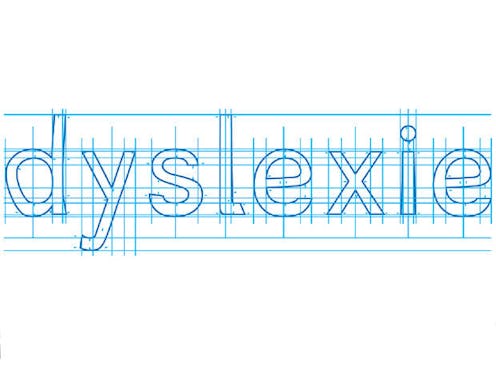
This Is A Typeface For Dyslexic People
For those of us who spend lots of time writing on the computer, we know the right font can make all the difference. But, outside of a stylistic choice, most of us have the privilege of being able to read most fonts without a problem. Those with dyslexia, however, often struggle with reading type. Thankfully, Dutch designer Christian Boer developed a typeface for dyslexic people, "Dyslexie," which he debuted at the Istanbul Design Biennial.
Approximately 10 to 15 percent of Americans are dyslexic. Knowing this, Boer, who is dyslexic himself, developed Dyslexie as part of his thesis in 2008 and has since been marketing it aggressively. The new font can be used not only to write, but also to read emails, browse websites, and print out readable documents. It can be used for basically anything, which will help countless people navigate text a little easier.
He wrote on his website:
Traditional fonts are designed solely from an aesthetic point of view, which means they often have characteristics that make characters difficult to recognize for people with dyslexia. Oftentimes, the letters of a word are confused, turned around or jumbled up because they look too similar.
According to Boer, by giving the letters a distinct baseline, alternating stick and tail lengths, large openings, and a slant, the letters are all unique and therefore harder to flip or switch in your mind. Therefore, it proves significantly easier for dyslexic people to read.
Dyslexie is backed by a number of independent studies. According to the research, 84 percent of dyslexic testers were able to read faster; 77 percent made less mistakes; and 76.8 percent would recommend the font to others. Boer's creation is currently being implemented by a number of companies and government agencies to make their materials more accessible to dyslexics.
Boer's website also includes a list of books and e-books that can be bought / downloaded in Dyslexie. Now, as more people incorporate Boer's font into their products, dyslexia will not have to get in the way of people enjoying them — which is pretty cool, if you ask me.